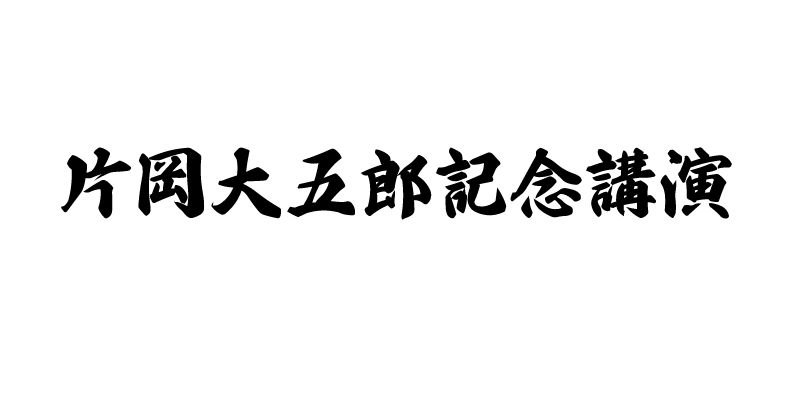
TA Fuga Fude Font Free Download is a bold and expressive Japanese brush-style typeface that channels the energy and spontaneity of traditional calligraphy. The name “Fuga” (風雅) means “elegant style” or “refined taste,” and “Fude” (筆) means “brush,” making this font a perfect fusion of grace and dynamic brushstroke character. It’s ideal for cultural posters, restaurant branding, artistic packaging, event signage, and designs that require a bold, handmade look with traditional roots.
TA Fuga Fude Font Free Download features sweeping, textured strokes and natural rhythm that reflect the nuances of real brushwriting. It captures the visual drama of ink on paper while maintaining readability—particularly effective in titles, headlines, or display settings that aim to evoke emotion and heritage.
This typeface includes full support for Hiragana, Katakana, Kanji, and basic Latin characters, making it suitable for bilingual designs with a strong Japanese cultural theme.
Powerful, artistic, and culturally rich—TA Fuga Fude Font brings calligraphic tradition to modern typography, perfect for designs that speak with elegance and bold spirit.